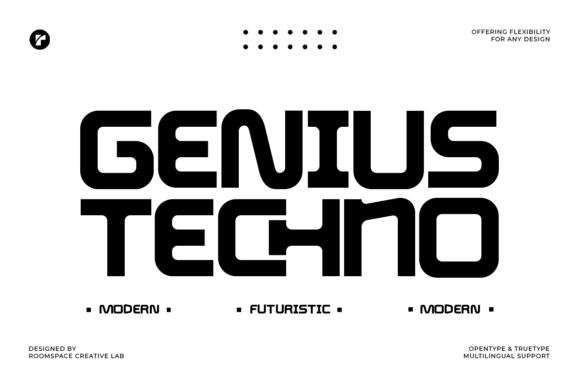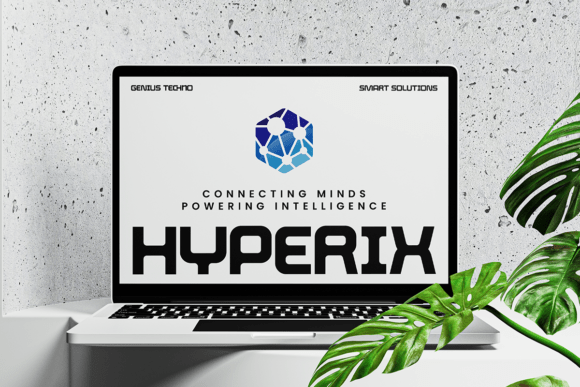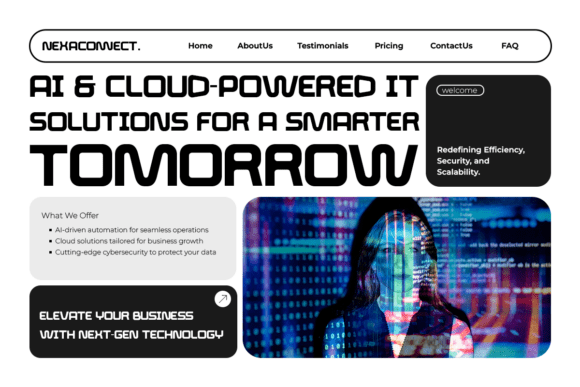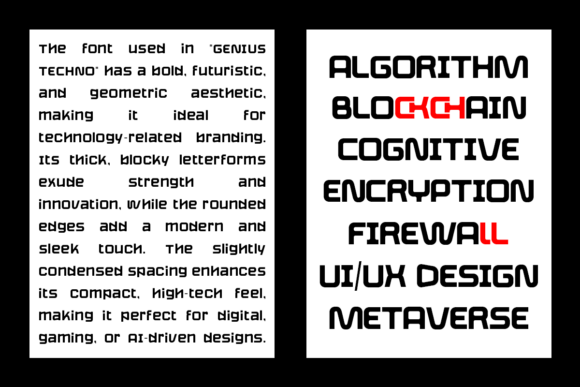
Genius Techno Font
About the Genius Techno Font
Get ready to be inspired by Genius Techno Font, a fresh and dynamic typeface for modern creators. Genius Techno is a cutting-edge modern futuristic typeface that embodies the sleek aesthetics of technology and innovation. Designed with bold geometric structures, rounded edges, and a tech-inspired look, this font is perfect for brands, UI/UX design, gaming, sci-fi projects, and futuristic branding.
Genius Techno excels in headlines, logos, and short impactful text for tech brands, gaming projects, and science fiction-themed designs. Its strong geometric forms command attention, making it unsuitable for body copy or lengthy paragraphs where readability is paramount. Avoid using it in UI elements requiring high legibility, such as website navigation or app menus.
The font’s bold, futuristic personality pairs well with clean sans-serif fonts like Open Sans for body text, creating a balanced contrast between the headline’s impact and the readability of supporting information. For a more playful feel, consider pairing it with a rounded geometric sans-serif like Futura. To add a touch of sophistication, a subtle serif like Garamond could be used for secondary text elements.
Its core personality is undeniably modern and assertive. Brands seeking to convey innovation, technological prowess, or a sense of futuristic energy will find Genius Techno an ideal choice.
Genius Techno Font Usage Examples
Genius Techno Font Example